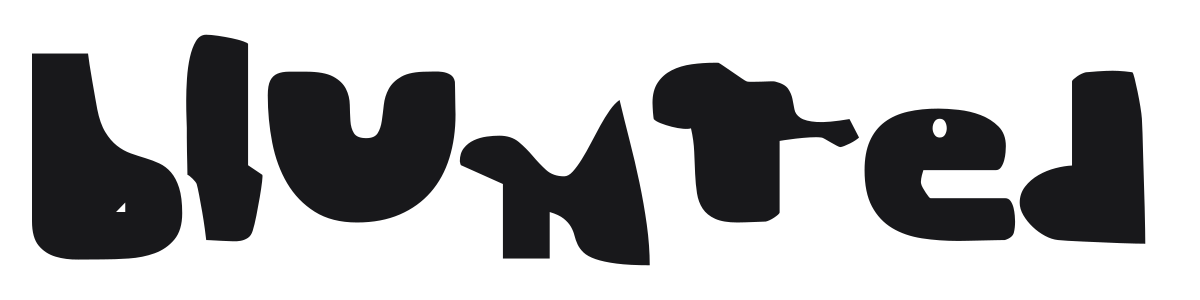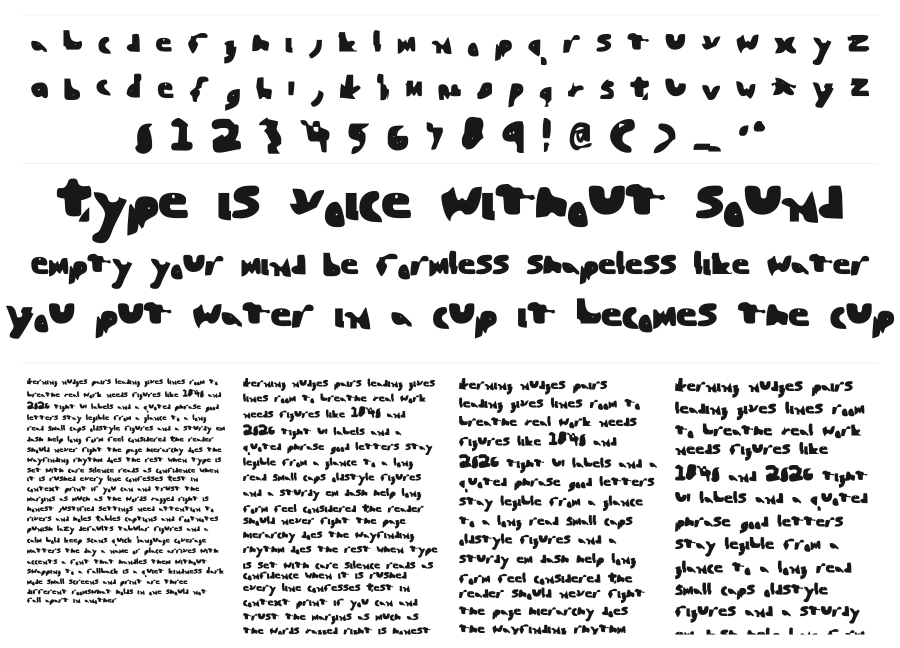
Blunted
by Bionic Type
Blunted is a heavily distorted display face from John of Bionictype, built by running existing fonts through digital filters until the characters almost dissolve into black blobs. Counters fill in, strokes merge, and recognizable letterforms give way to something closer to abstract shapes. It exists at the extreme end of the legibility spectrum, useful primarily when chaos is the message.